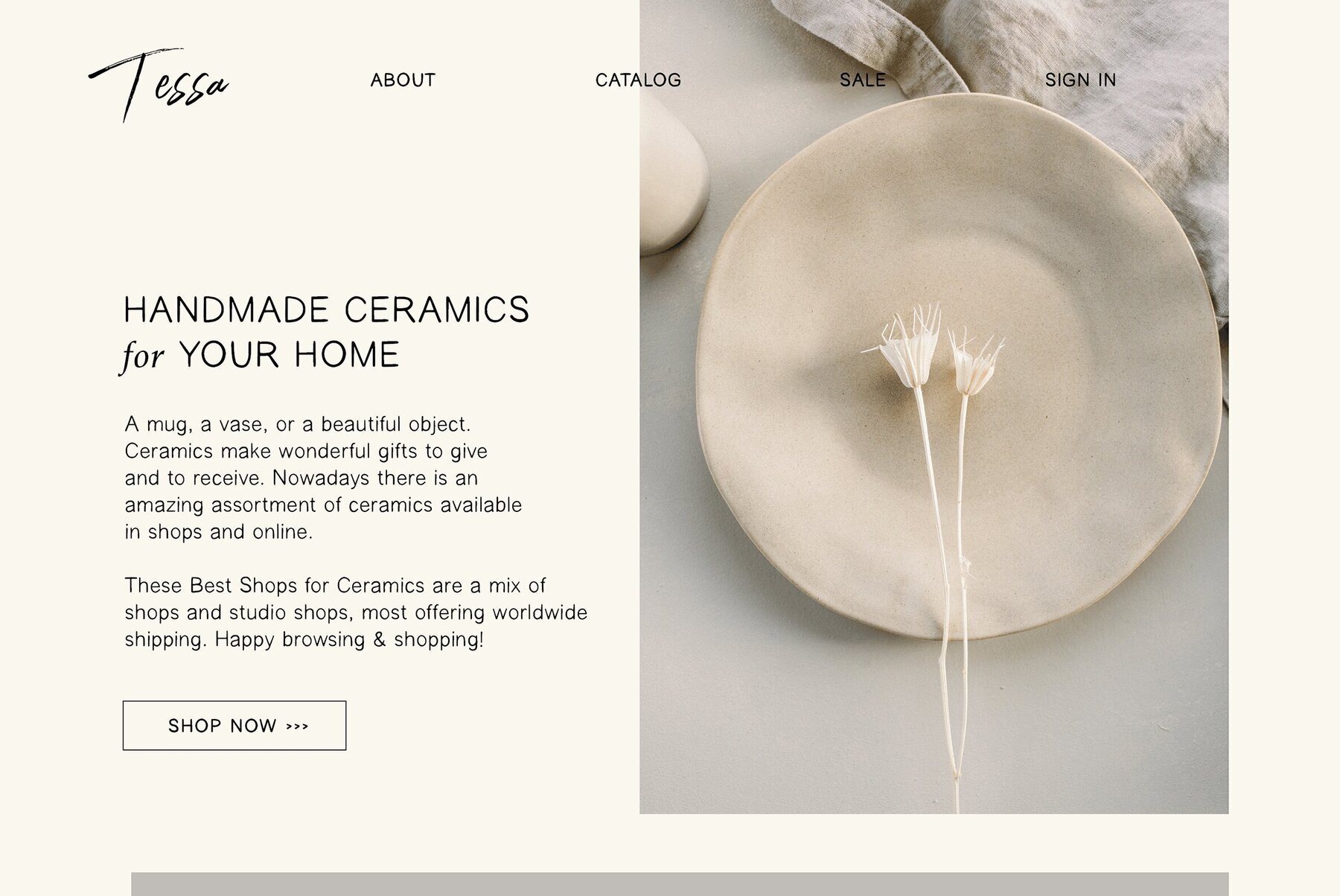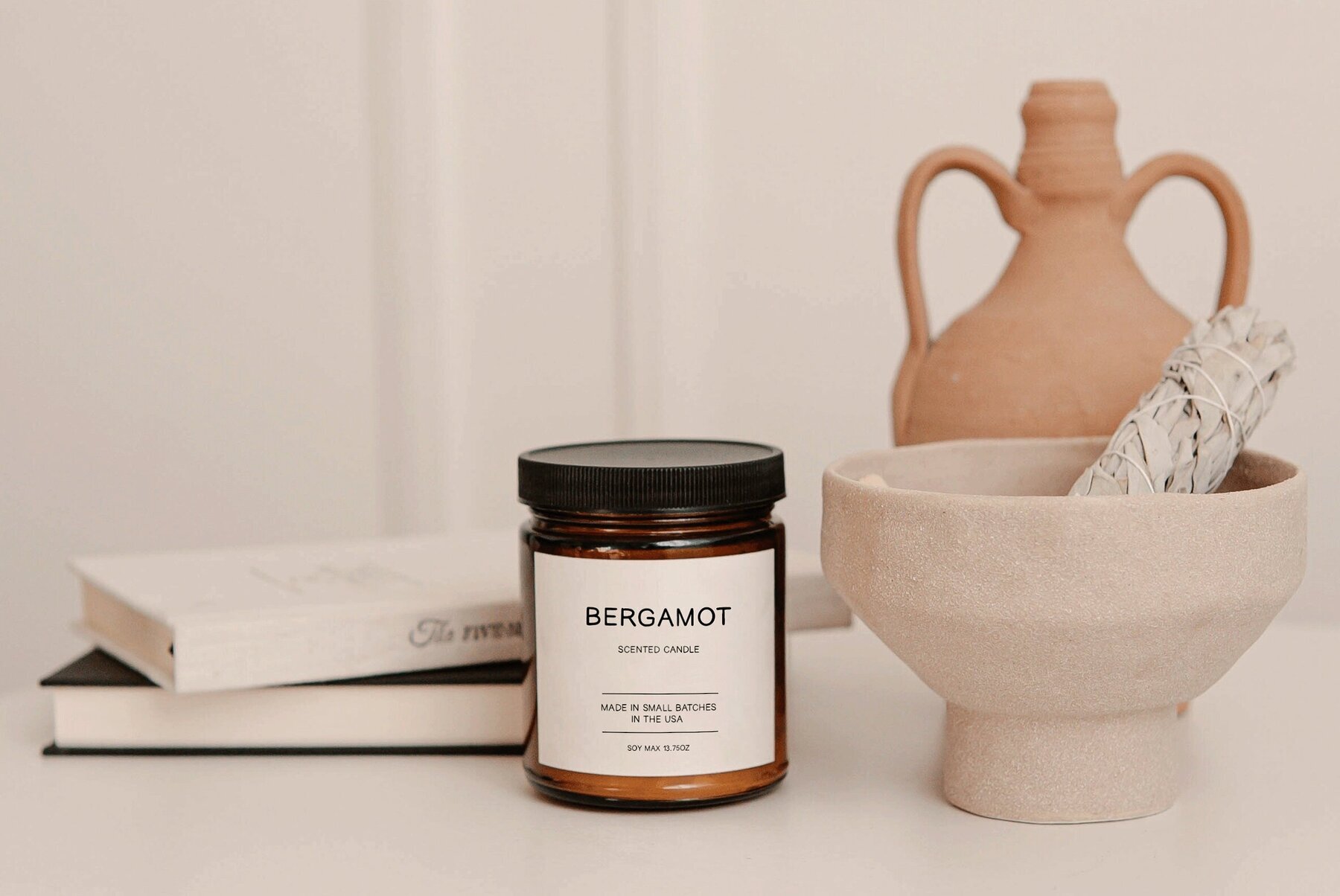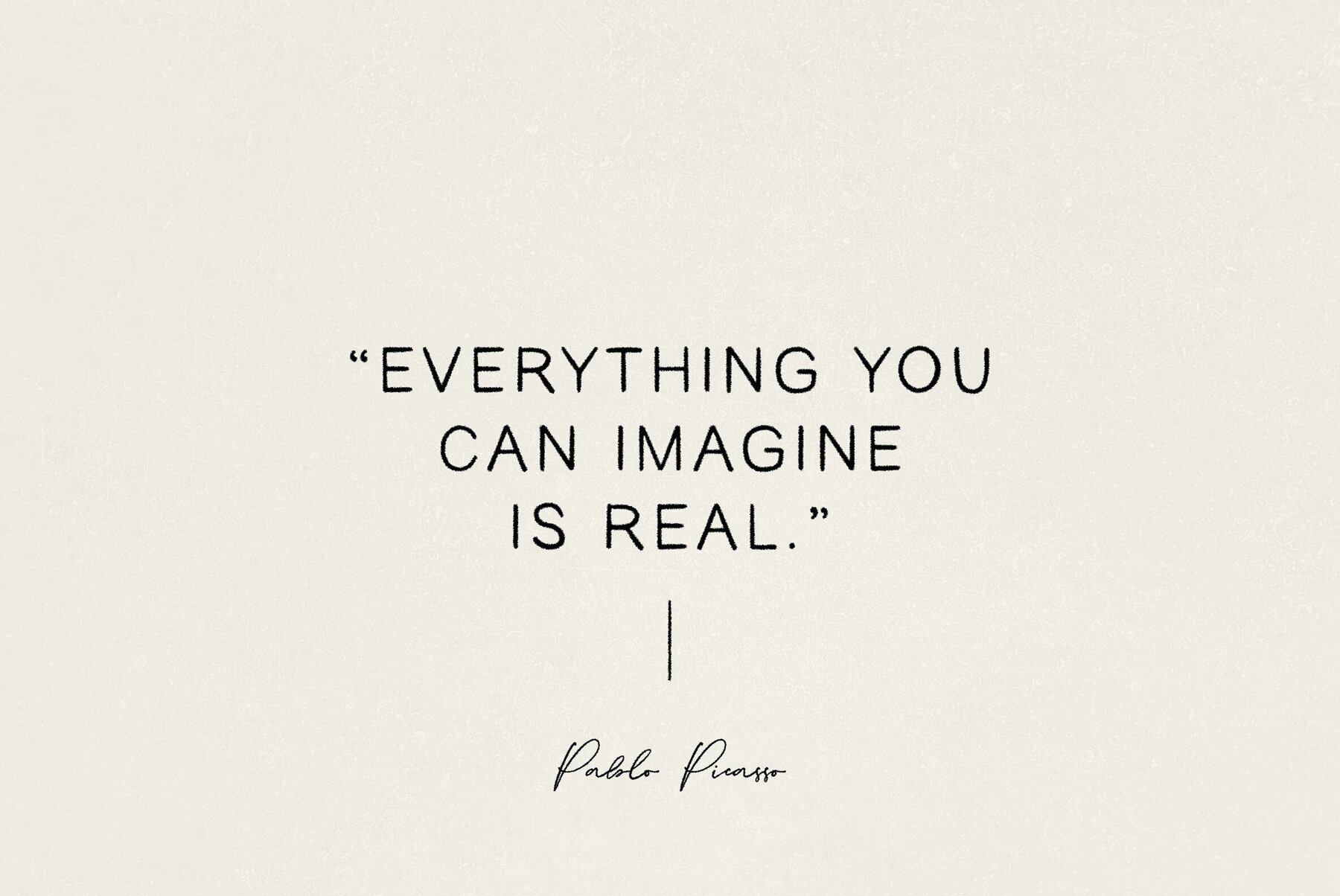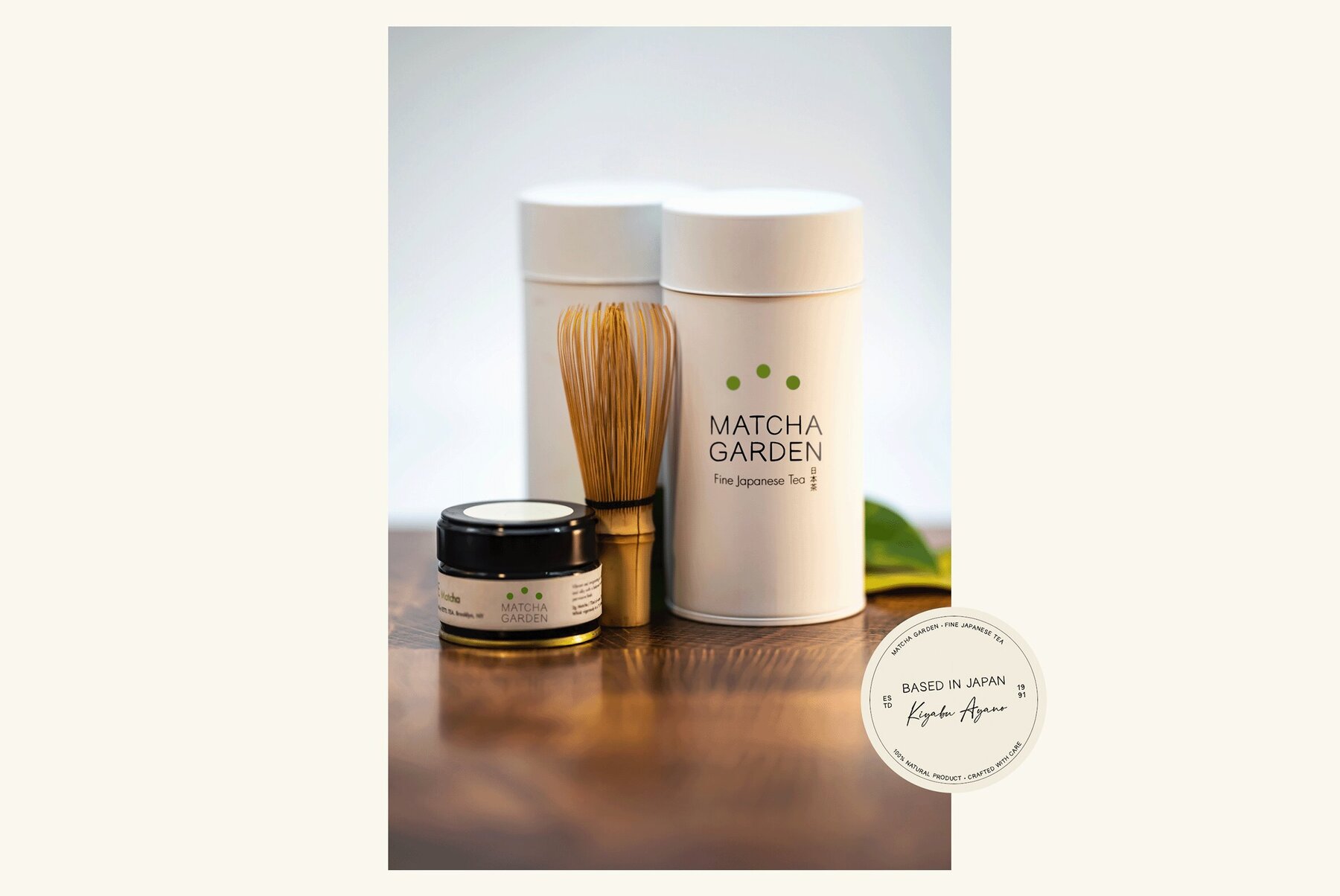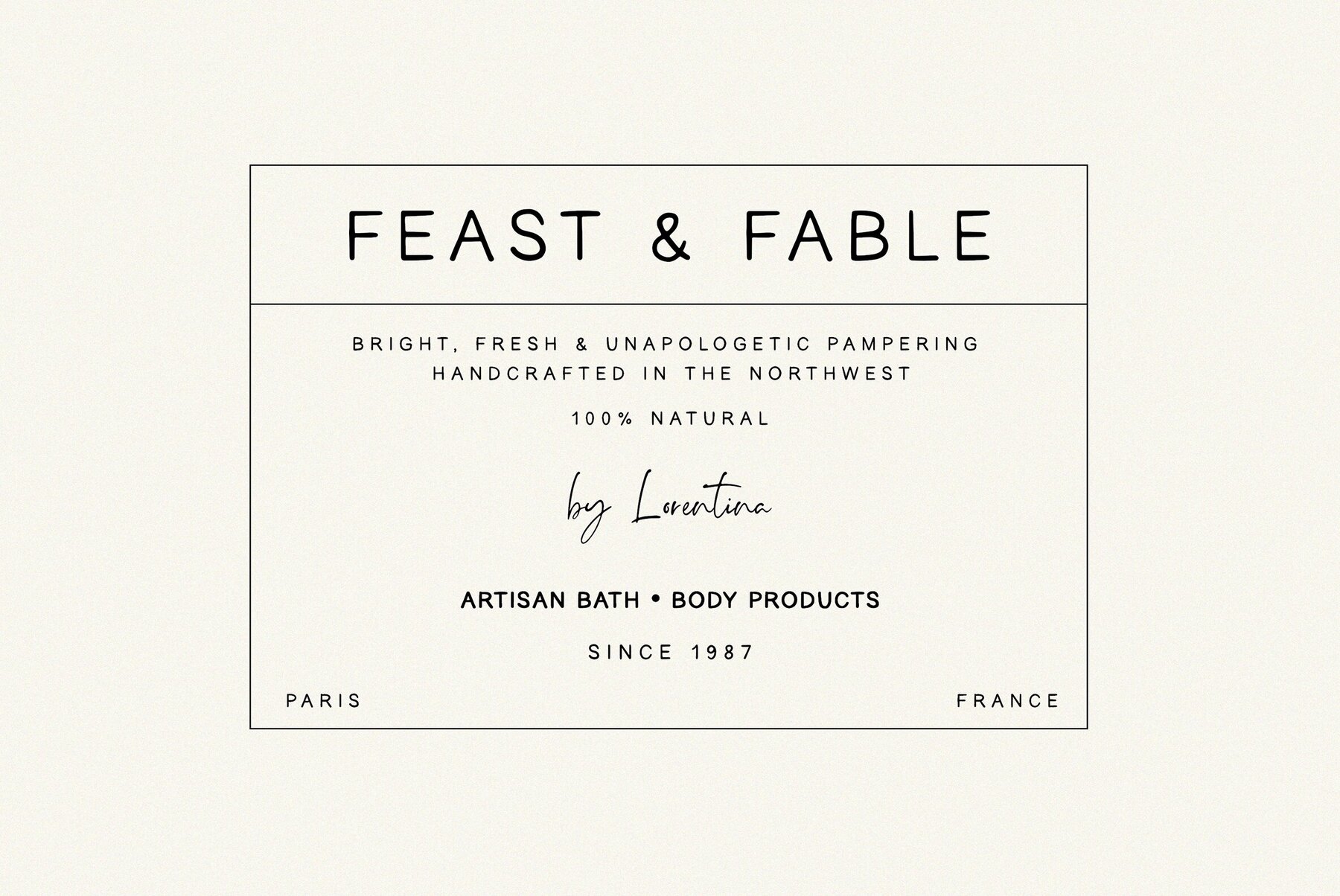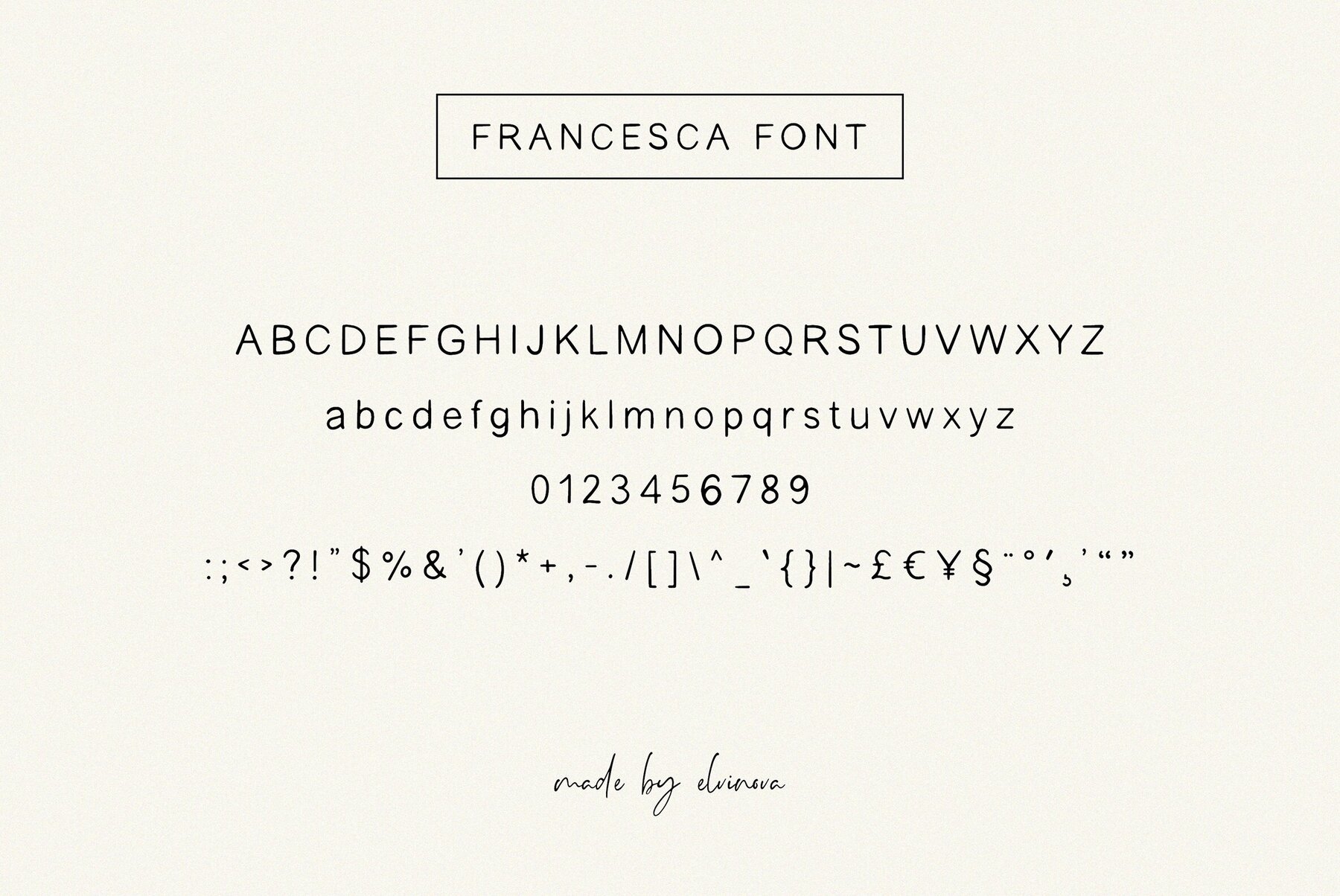
Francesca Handlettered Font
Meet The Francesca - a sweet handwritten sans typeface perfect for headlines and body text. Its charming style adds a touch of warmth to your designs, making it a versatile choice for various projects. The Francesca includes: